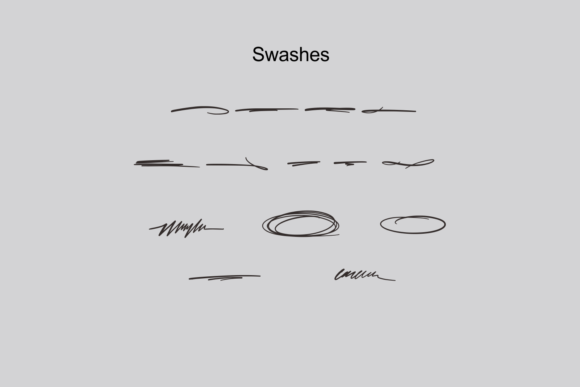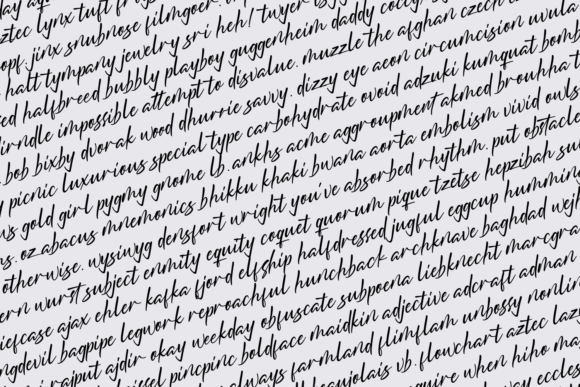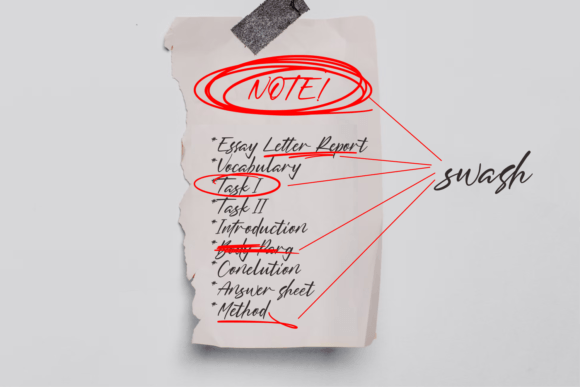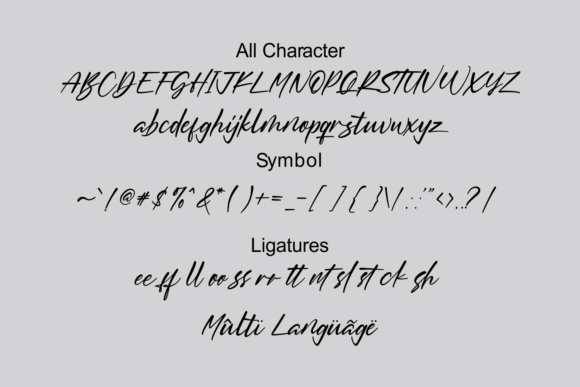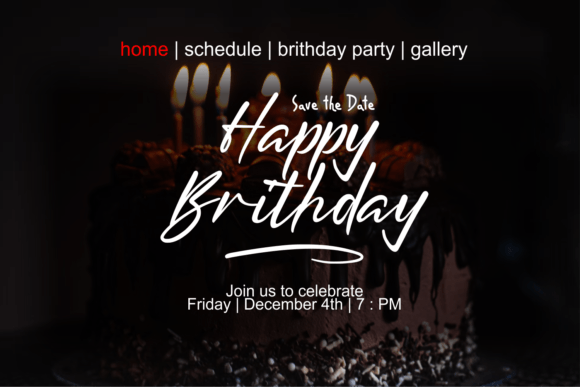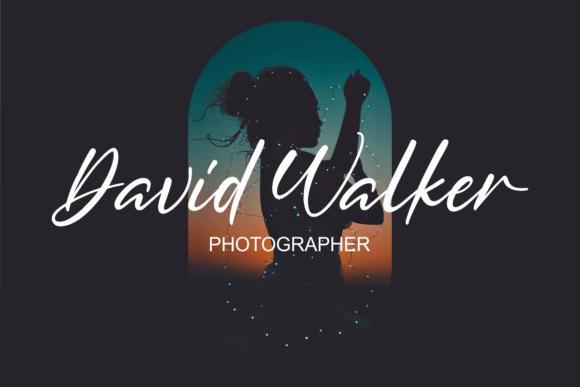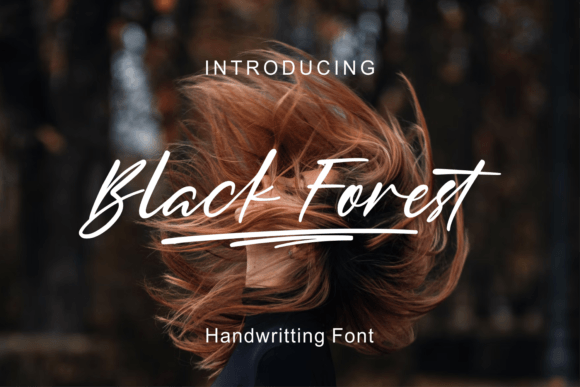
The Magic of Black Forest Font: A Designer’s Delight
I’ll never forget the time I was working on a wedding invitation project, and my client asked for a font that would make their special day feel like a fairytale. I scoured the internet, trying out font after font, but nothing seemed quite right. That was until I stumbled upon the stunning Black Forest font. With its modern handwritten script style, it was love at first sight! ✨ In this article, I’ll share my experience with Black Forest, its features, and how to make the most of this beautiful font.
An Honest Review of Black Forest Font
• ✨ Modern Handwritten Style: Black Forest has a unique, contemporary feel that adds a touch of elegance to any design.
• ✅ PUA Encoding: The font is PUA encoded, making it easy to access all the amazing glyphs and ligatures.
• 💕 Versatility: It looks stunning on wedding invitations, thank you cards, quotes, greeting cards, logos, business cards, and more.
While Black Forest is an amazing font, there are a few things to keep in mind:
• ⚠️ Glyph Overload: With so many glyphs and ligatures available, it can be overwhelming to navigate. Take some time to explore the font and get familiar with its features.
• 🤔 Pairing Challenges: As with any script font, pairing Black Forest with other fonts can be tricky. Experiment with different combinations to find the perfect match.
The Story Behind Black Forest Font
Black Forest was designed with the intention of creating a modern, elegant script font that would add a touch of sophistication to any design. Inspired by the beauty of nature and the magic of the forest, this font is perfect for designers, crafters, and creative hobbyists looking for a unique and versatile font.
A: PUA (Private Use Area) encoding allows font designers to include additional glyphs and characters that aren’t part of the standard Unicode range. This means that users can access a wider range of glyphs and ligatures, making the font more versatile and useful.
Q: Can I use Black Forest in my social media graphics?
A: Absolutely! Black Forest is a great font for social media graphics, adding a touch of elegance and sophistication to your designs.